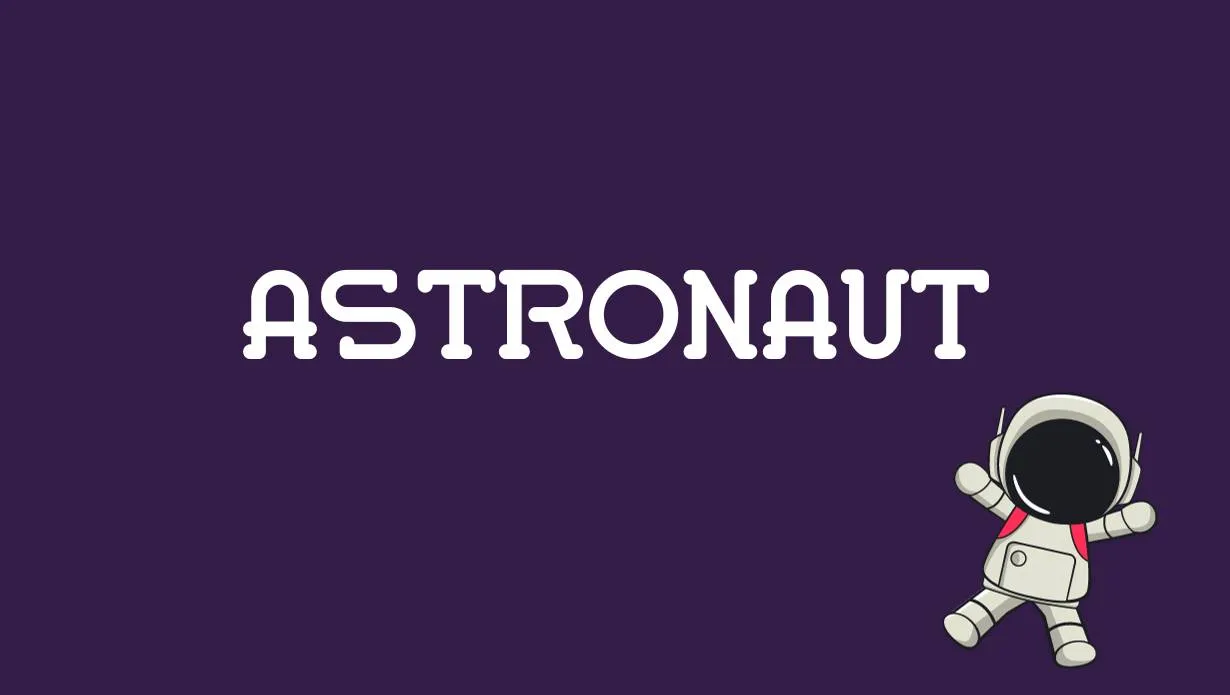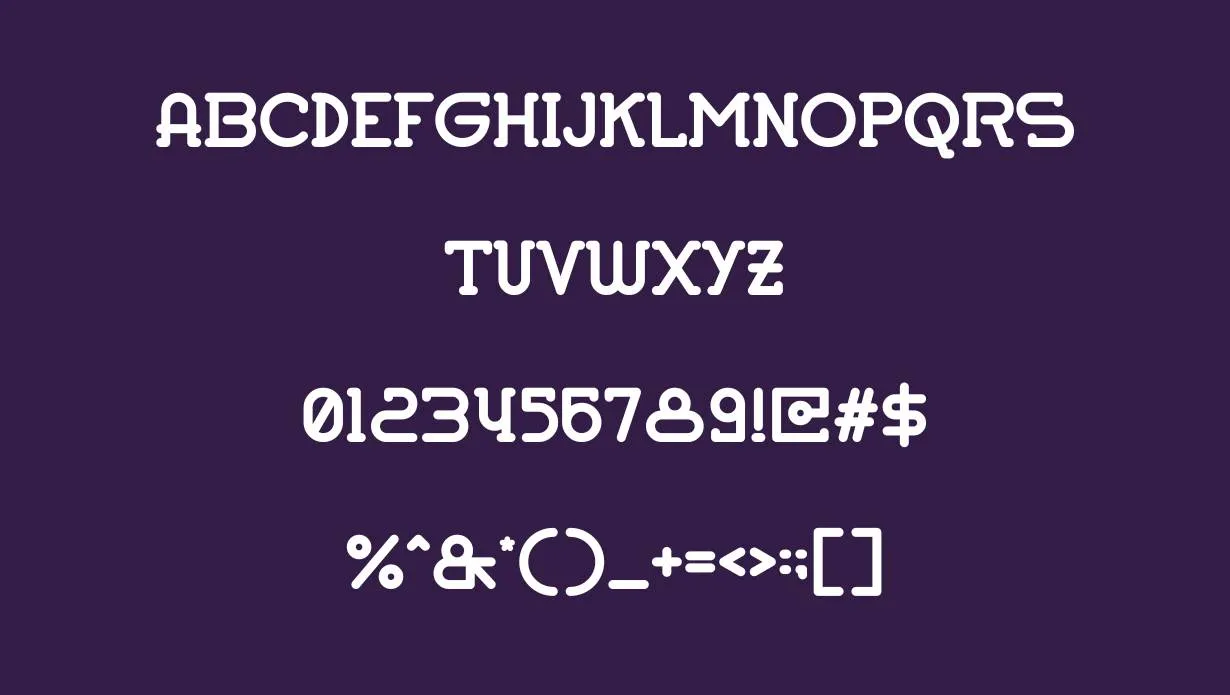
Whether you are a professional graphic designer or a newbie in the graphic designing field, this font will be worth your collection. The font has a complete collection of characters including uppercase letters, lowercase letters, numbers, and punctuation marks.
Who Used Cartos Font?
The font gives multiple opportunities to make elegant designs and the designs of your own choice. You can make print designs as well as display designs. The font is a perfect font style to be used to make web designs on any topic using HTML (to develop a website) and CSS (to design a website).
You can design posters, invitation cards, product packaging, brandings, logos, wedding cards, business cards, PowerPoint presentations, and many more using this iconic font style.
Cartos Font Family Appearance
| Style | Fancy |
Family of Cartos Font
- Cartos Regular
- Cartos Italic
What is Cartos Font?
Cartos Font is a fancy font style designed by a renowned font designer Tokokoo Studio.
Can I use Cartos in my logos?
Yes, you can easily use this font in your Logos. You can make any type of logo for your organization to give it a meaningful logo.